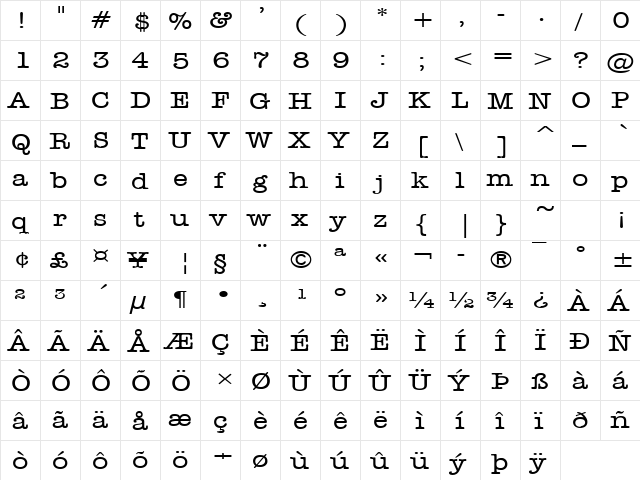
Headline Wide Normal
Design Context for Headline Wide Typeface
Headline Wide offers clean, dependable letterforms without strong stylistic allegiance, making it a practical choice for designers who need flexibility.
Pro Tip: Pair Headline Wide with a font of contrasting weight or personality to build a more expressive typographic hierarchy.